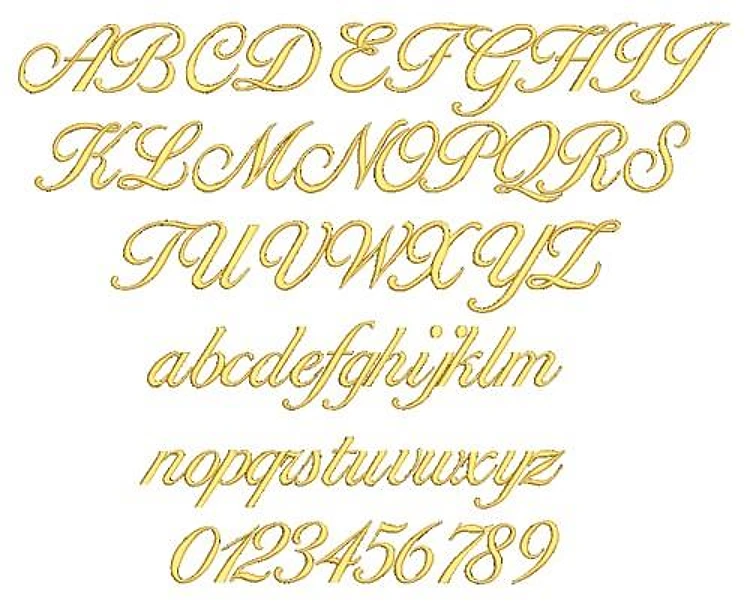
AlpineMastiff Designs is happy to present AMD Ballentine Script machine embroidery font which has Ballentine Script is a flowing script style machine embroidery font ideal for use on decorative pillows or specialty gifts. Available in PES, DST, and 7 other formats. included. If you would like to view more embroidery fonts and alphabets please search our embroidery fonts page.